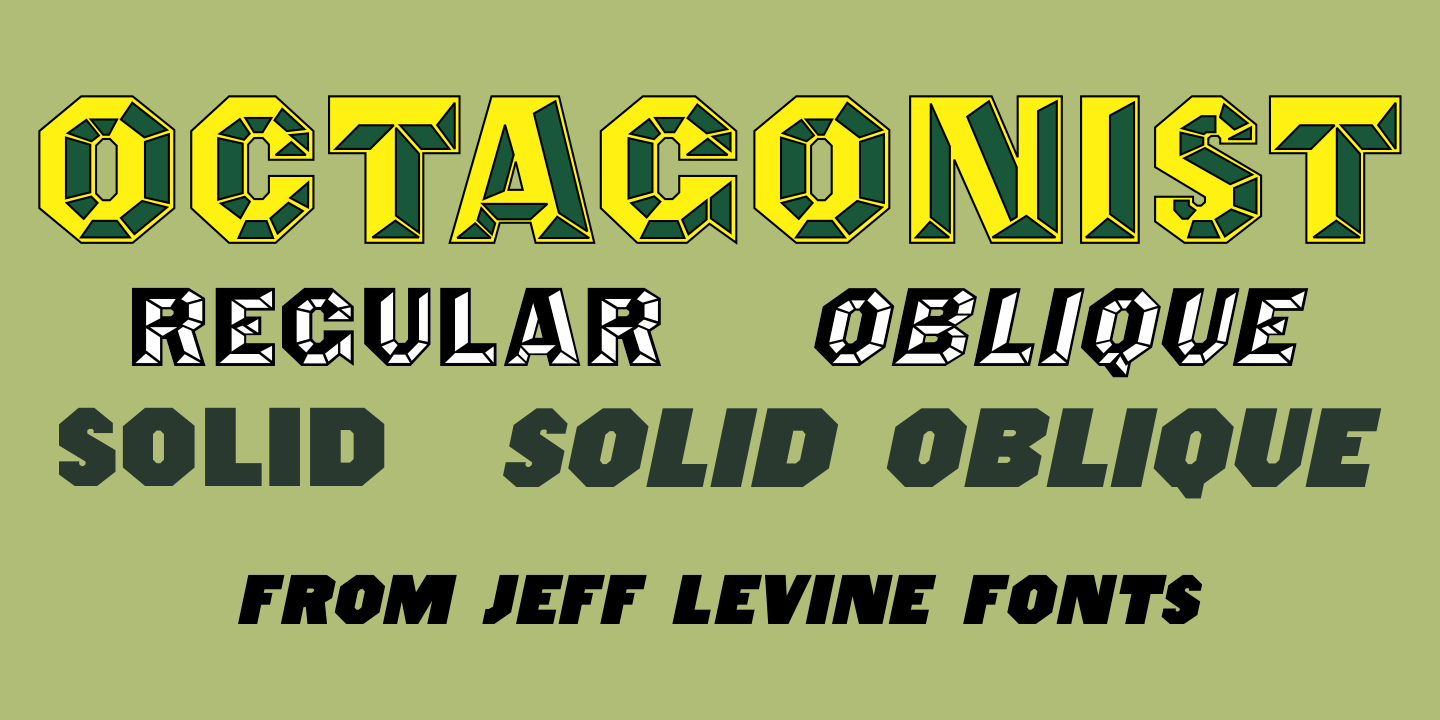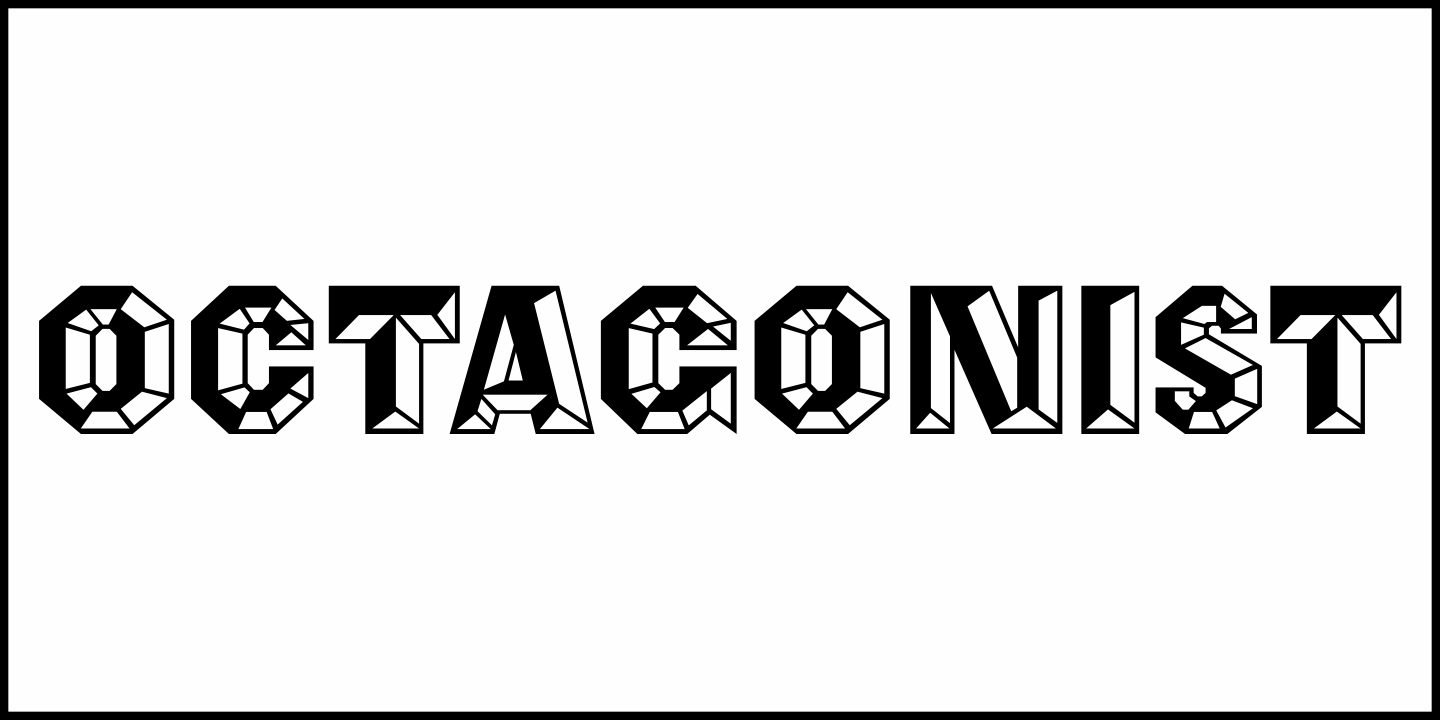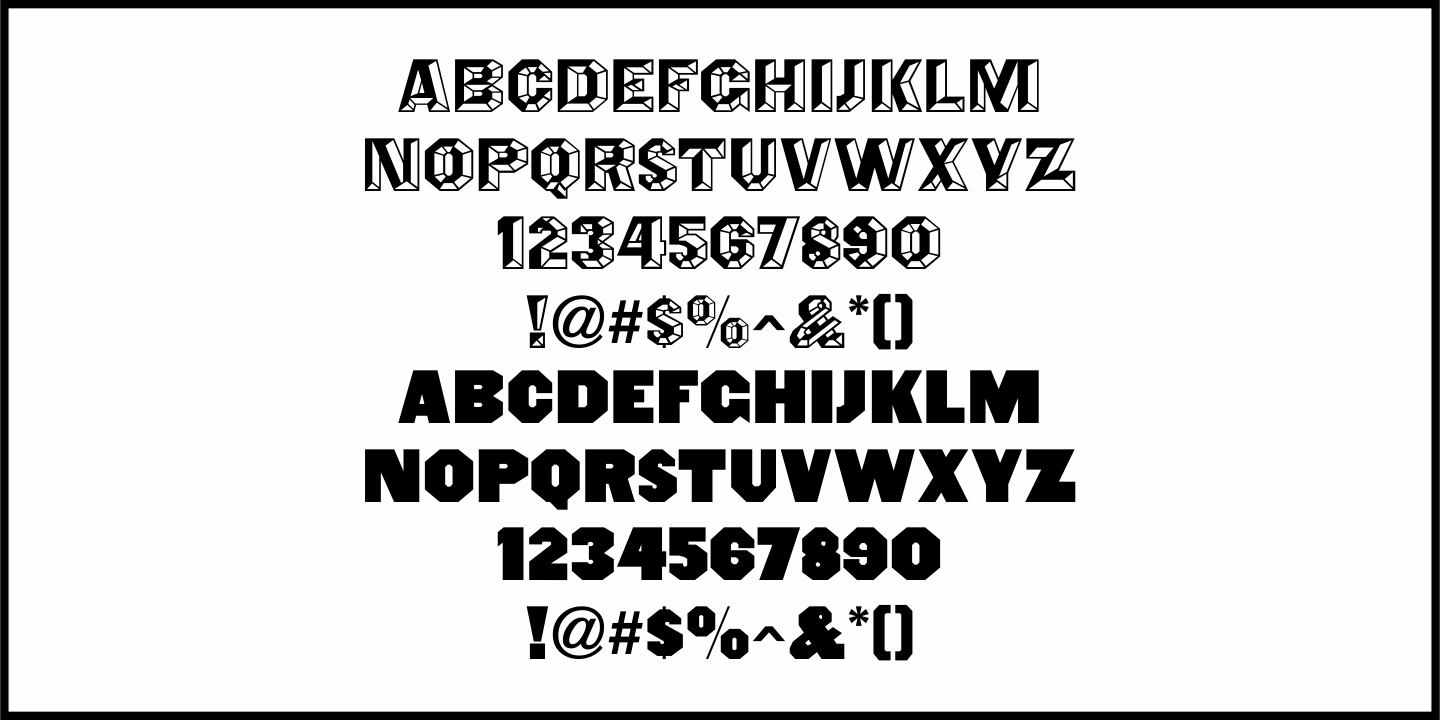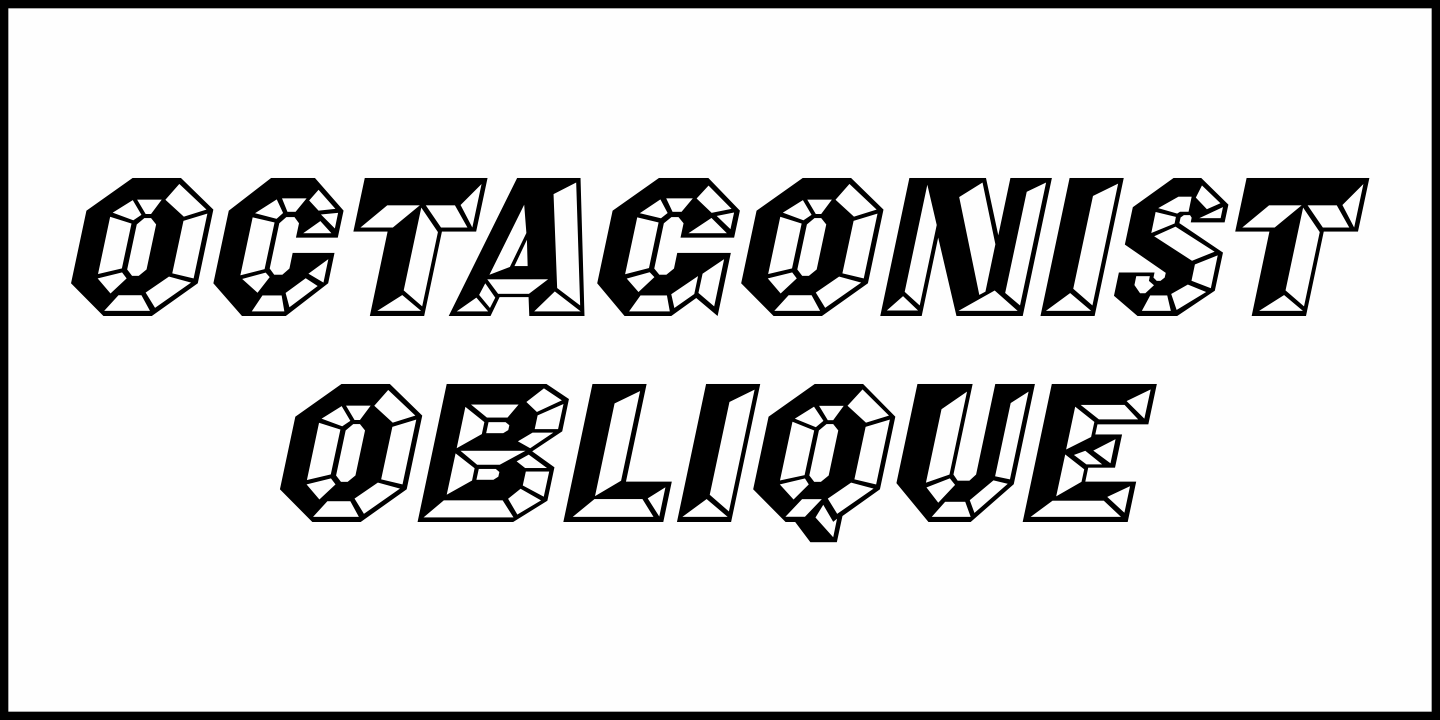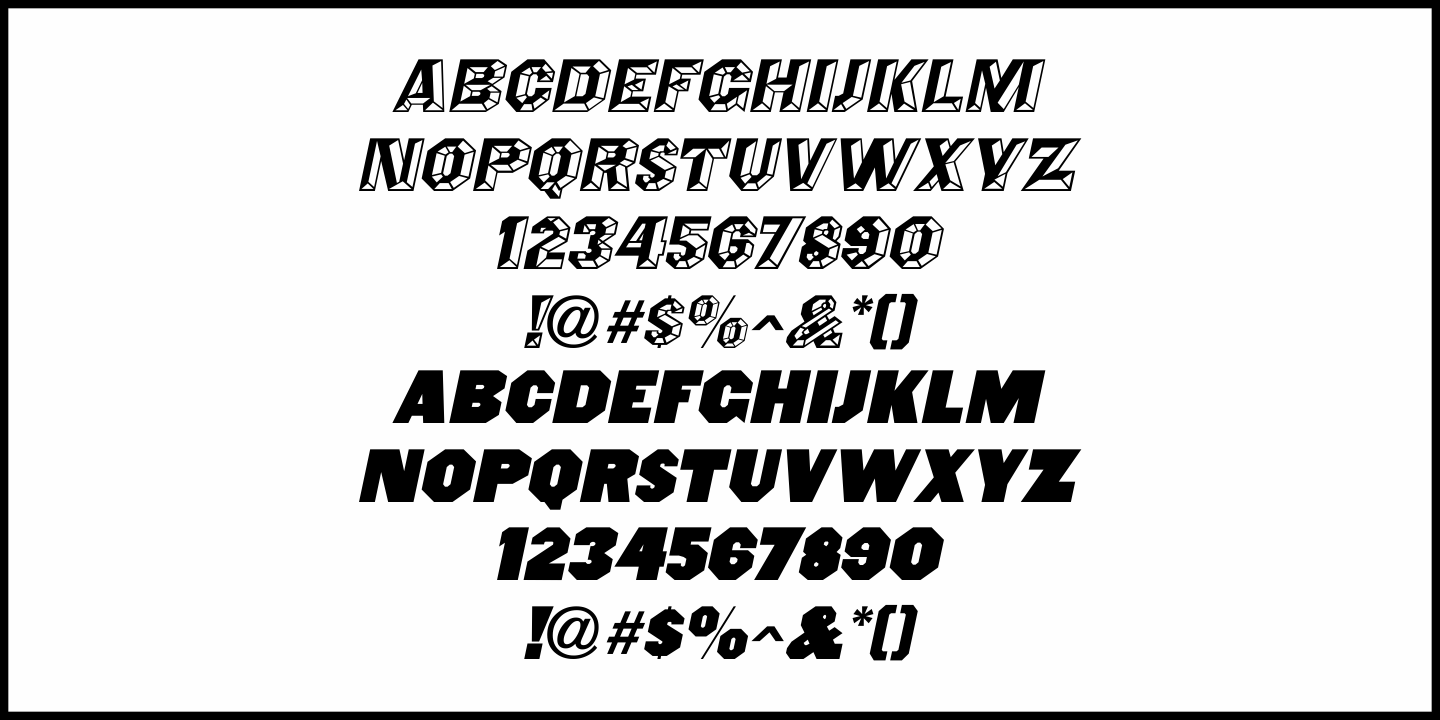
Octagonist
Buy NowOctagonist JNL is based on ‘Octagon’ [which was introduced in the George Nesbitt 1838 specimens of wood type] and is available in regular, oblique, solid and solid oblique versions.
The font’s name is partly an homage (to the original type name) while at the same time making a pun on the word ‘Antagonist’.